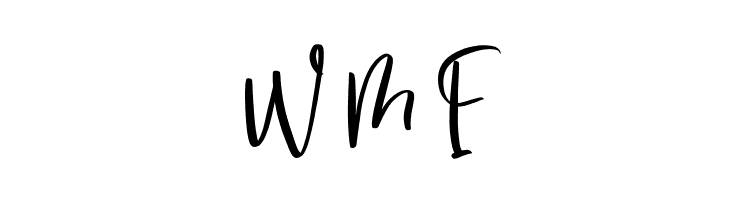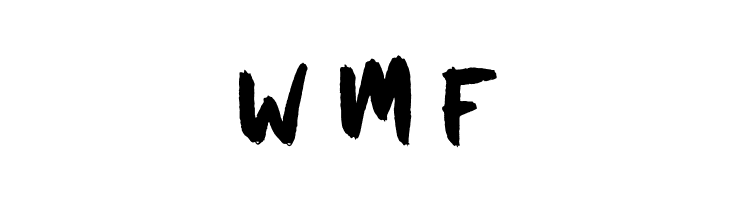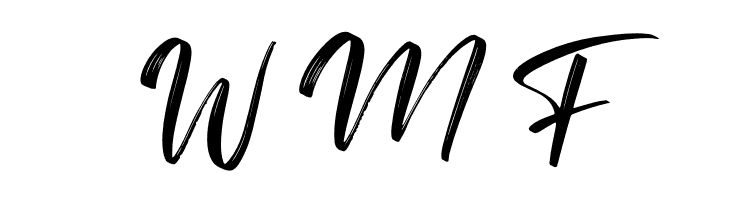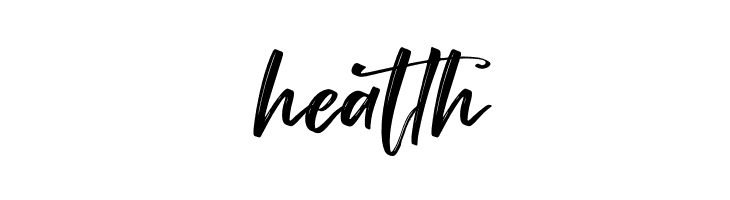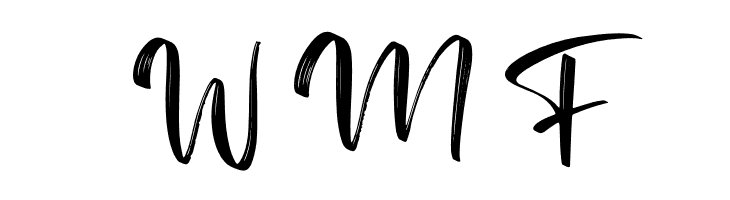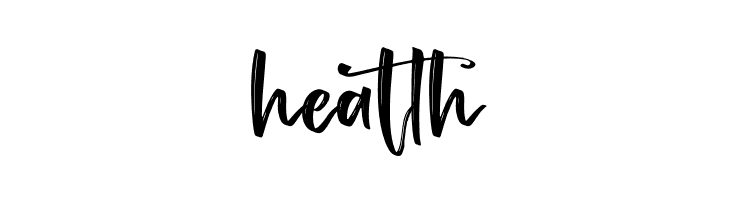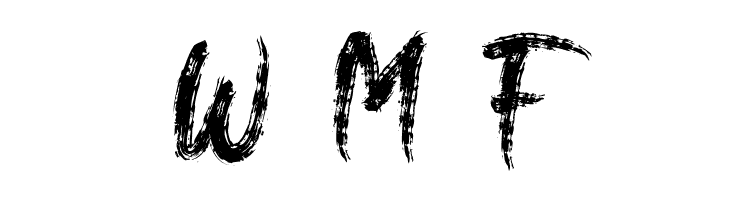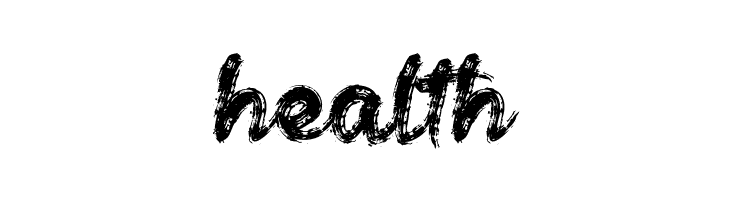
A rough, brush-style font with bold, dynamic strokes.
A bold, rough brush font with a textured, hand-drawn appearance.
A lively, handwritten brush font with bold, sweeping strokes and playful curves.
A bold, brush-style script font with dynamic, hand-drawn strokes.
A bold, brush script font with a dynamic and energetic style.
A dynamic brush-style font with fluid, energetic strokes.
A tall, narrow, brush-like font with a hand-drawn appearance.
A rough, brush-textured font with tall, narrow characters and a hand-drawn feel.
A bold, textured brush font with dynamic, hand-painted strokes.
A bold, expressive brush-style font with a hand-painted appearance.